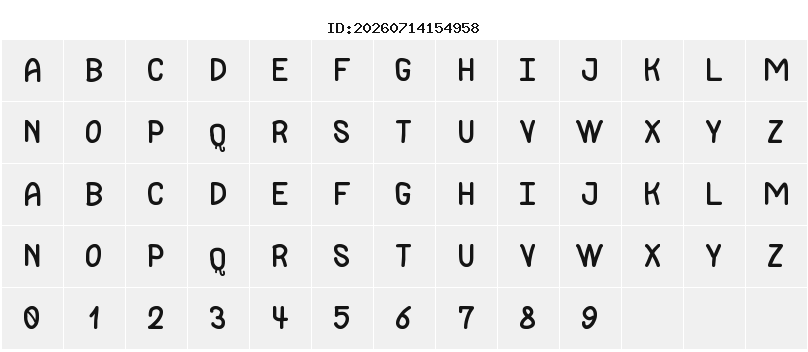
Jackdaws Love St Preview
• Font Name: Jackdaws Love St
• Full Font Name: Jackdaws Love St
• Designer: This font is an original work of southype dot com
About Jackdaws Love St.ttf
Jackdaws Love St.ttf is a modern, elegant sans-serif font designed for ultimate readability and visual harmony. Perfect for branding, headlines, web design, and print materials.